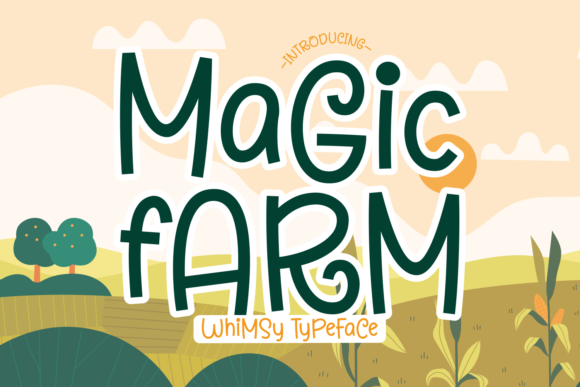
Welcome to the world of Magic Farm Font, a whimsical and enchanting display font that will transform your designs into captivating masterpieces. With its cheerful, friendly, and delicate charm, Magic Farm Font is the perfect choice for adding a touch of playfulness and uniqueness to your creative projects.
Crafted by the talented Dani of 7NTypes, Magic Farm Font is not just a font; it's an experience. Its captivating glyphs will dance across your designs with elegance and grace, leaving a lasting impression on your audience. Whether you're creating posters, flyers, social media graphics, or website designs, Magic Farm Font will elevate your creations to new heights.
Journey into the magical world of Magic Farm Font and discover a world of endless possibilities. Its whimsical curves and playful lines will bring a smile to your face and captivate the hearts of your audience. Let your imagination soar as you explore the limitless potential of this extraordinary font.